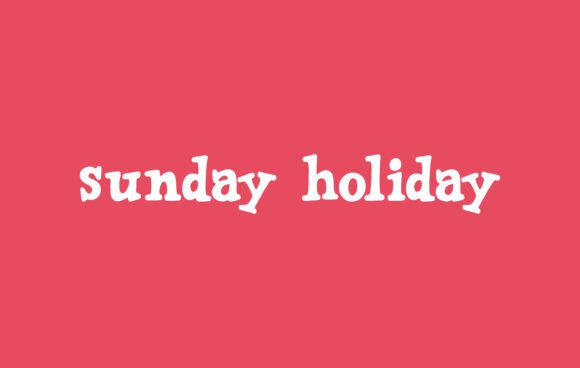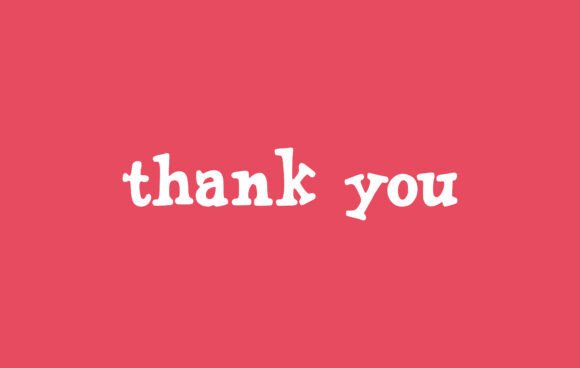
Introduction to Ibrahim Font
Have you ever stumbled upon a font that perfectly captures the essence of your creative vision? For many designers, this moment of serendipity is the spark that ignites a new project. For those in search of a high-quality design resource, look no further than the enchanting Ibrahim Font. This authentic handwritten font exudes a romantic touch, making it an ideal choice for a wide range of creative projects.
Whether you’re working on a wedding invitation, a social media campaign, or a branding strategy, the Ibrahim Font is sure to elevate your design to new heights. Its legibility and versatility make it perfect for use as both a title and body text, ensuring your message stands out with clarity and sophistication.
Key Features of Ibrahim Font
- High-quality design resource suitable for creative projects, including logos, branding, and digital art.
- Unique, handcrafted design with a transparent background, allowing for seamless integration into any design project.
- Available in multiple weights and styles, including bold, italic, and regular, to cater to different design requirements.
- Resolution-independent design, ensuring crisp and clear typography across various screen sizes and resolutions.
Honest Review: Ibrahim Font
As a designer, I’m always on the lookout for high-quality design resources that can elevate my creative projects. Recently, I stumbled upon the Ibrahim Font, and I must say it’s been a pleasant surprise.
- Unique and stylish design that can add a touch of elegance to any project
- Transparent background, allowing for easy composition with other design elements
- Some users may find the font too ornate, making it difficult to read in certain contexts
- Limited language support, which may be a concern for designers working on multilingual projects
Overall, the Ibrahim Font is a solid addition to any designer’s toolkit. Its unique design and transparent background make it an excellent choice for creative projects. While it may have some limitations, I believe the benefits far outweigh the drawbacks.
Ibrahim Font is a versatile design resource that can be used in a variety of creative projects, including logos, social media graphics, and presentations. Its high quality and transparent background make it an ideal choice for designers looking to add a touch of elegance and sophistication to their work.
Compared to Ibrahim Font, Great Vibes Font has a more refined and polished look, making it suitable for a wider range of design applications. While Ibrahim Font has a more playful feel, Great Vibes Font is more suited for formal and professional projects.